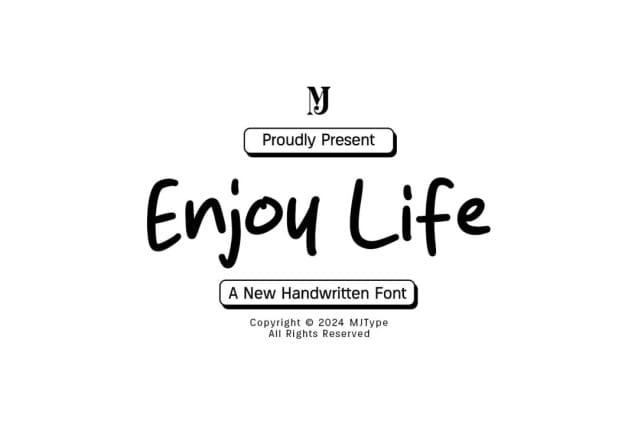
Enjoy Life Font
Enjoy Life Font is a simple and friendly handwritten font. Its natural and unique style makes it incredibly fitting to a large pool of designs. The only limit is your imagination!